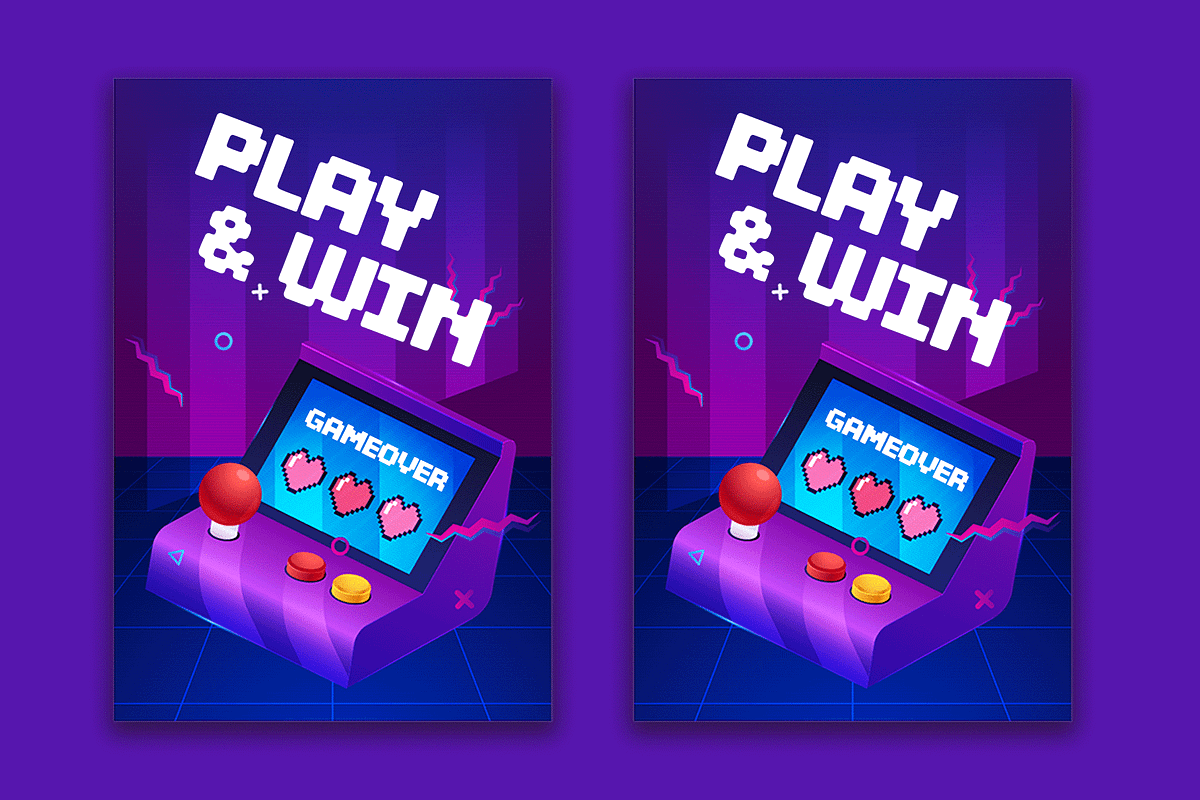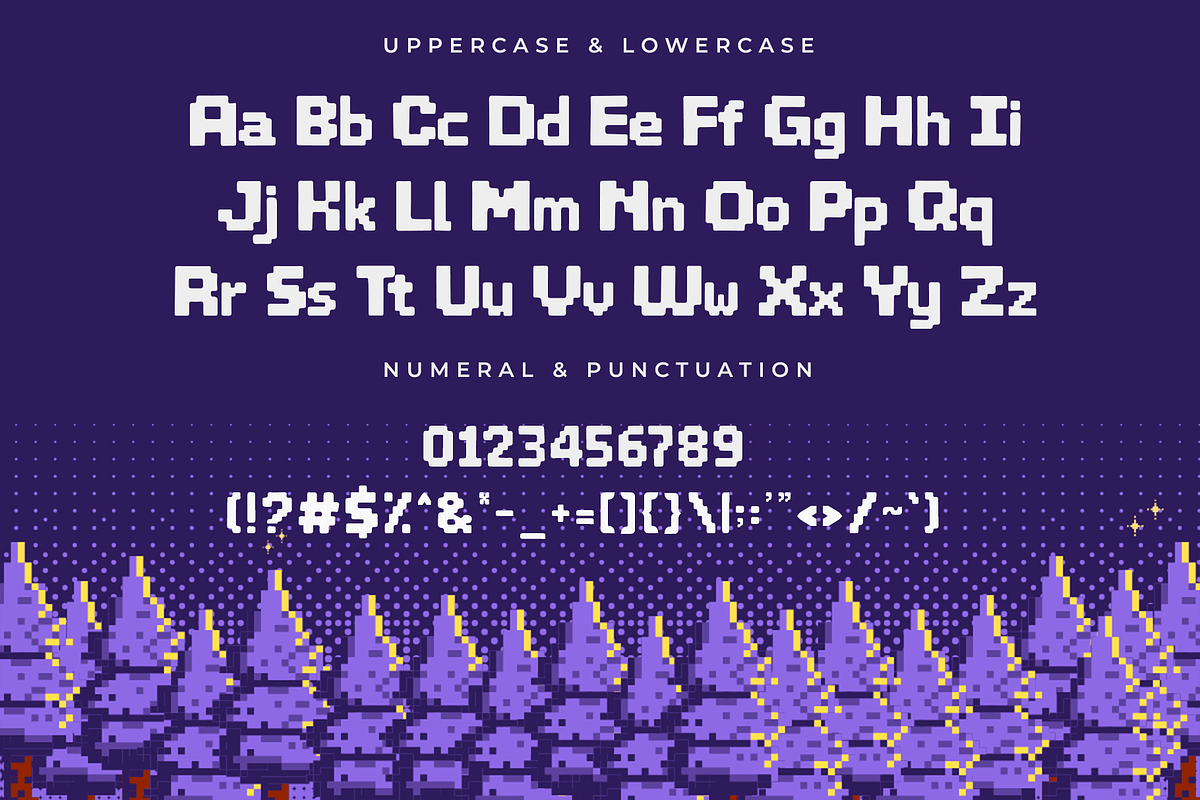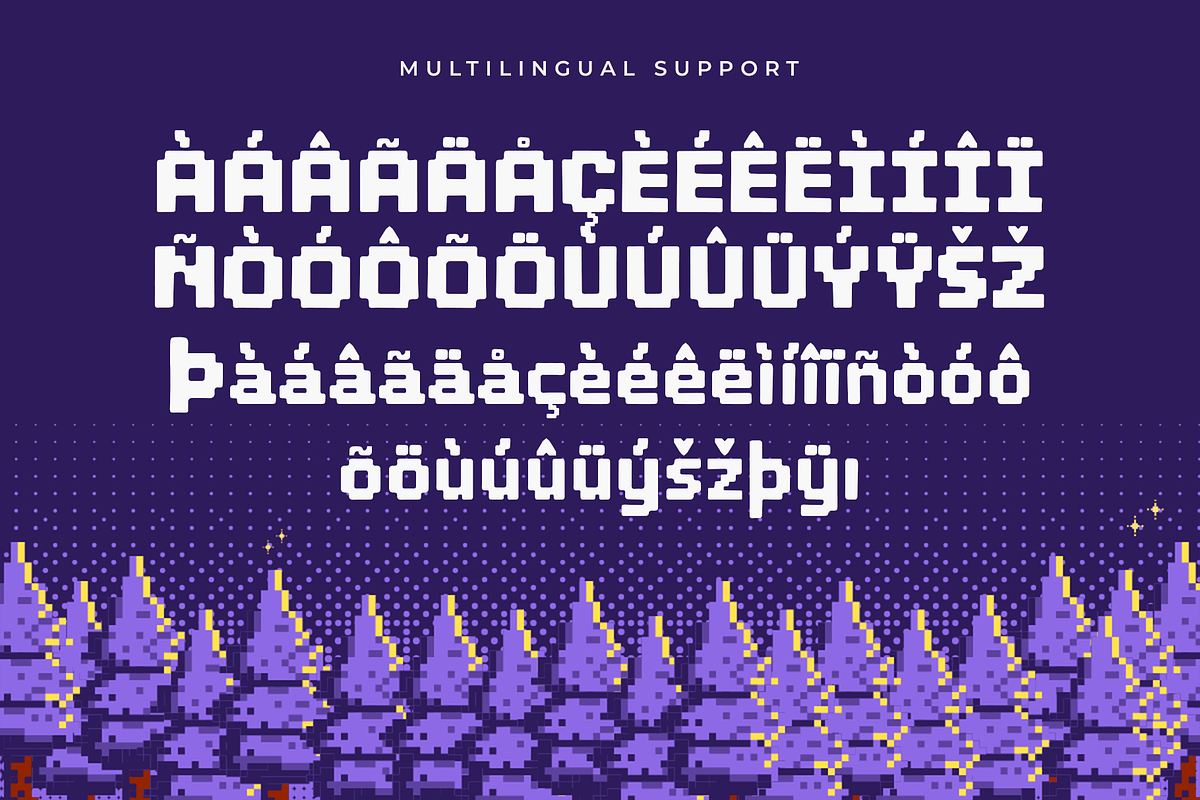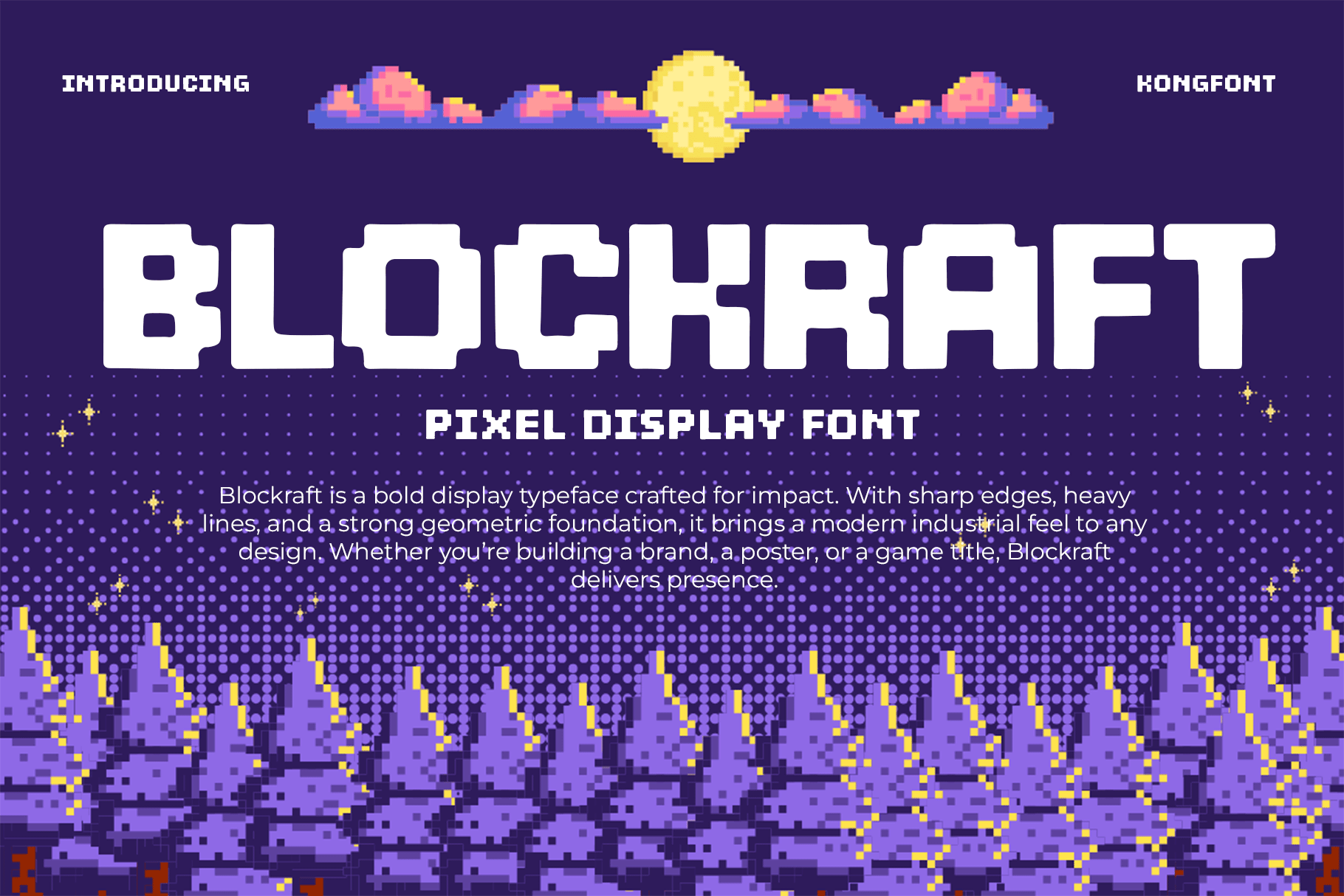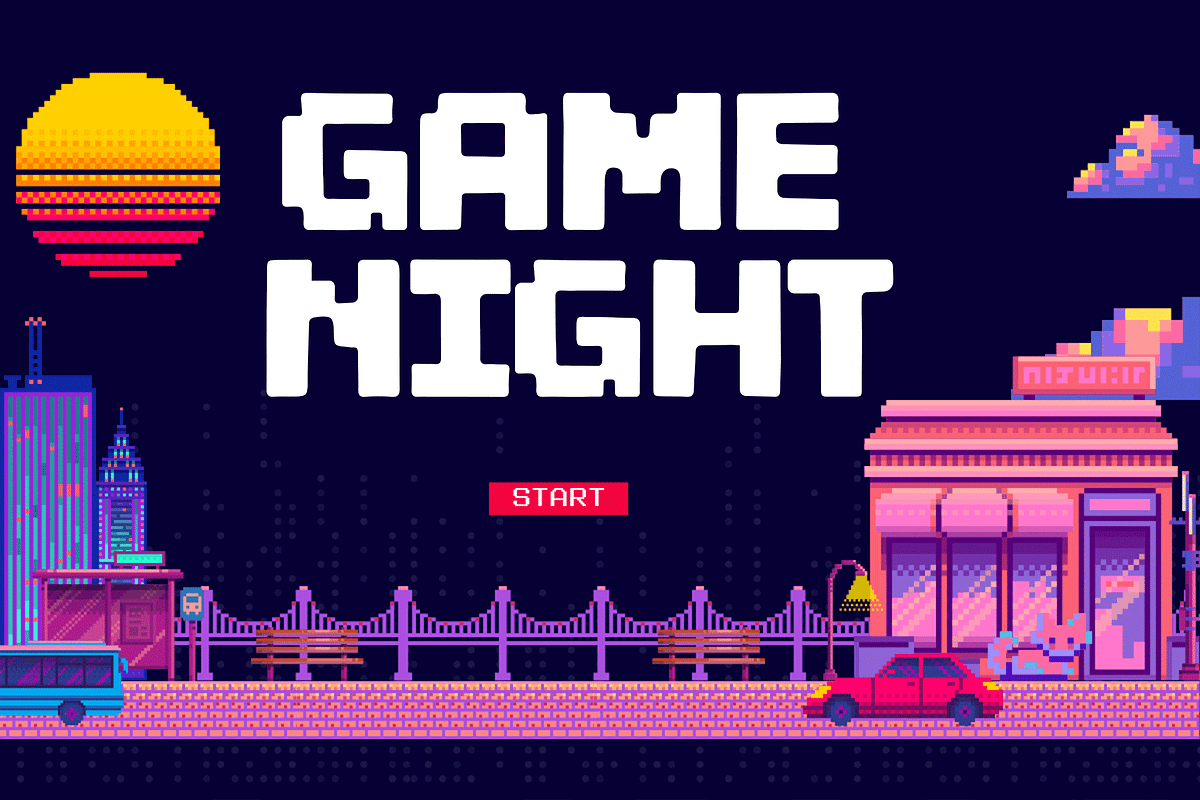
Blockraft – Pixel Display Font
Blockraft is a bold pixel display font inspired by retro games, digital interfaces, and blocky aesthetics. With its clean grid-based letterforms and nostalgic 8-bit charm, Blockraft is the perfect choice for gaming projects, pixel art posters, YouTube thumbnails, kids’ designs, and tech-inspired branding.
This font captures the spirit of old-school arcades and sandbox creativity, making it a standout option for digital themes, Minecraft-style visuals, or playful pixel-based logos. Each character is designed to be crisp and legible at any size, while maintaining its charming block-style character.
Blockraft includes uppercase letters, numbers, punctuation, and multilingual support—perfect for projects that require both structure and fun.
Bring digital nostalgia and bold block energy into your designs with Blockraft.